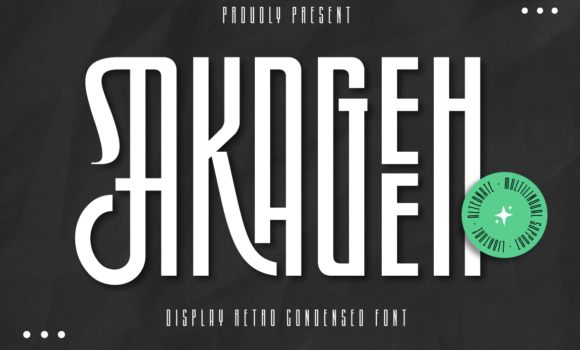
akageeh
Akageeh Font – Free Download Introduction to Akageeh Font Akageeh is a retro condensed sans serif, a contemporary, elegant, and bold font. 📸 Preview Gallery 6 images 📌 Product Name Akageeh Font 👤 Author twinletter 📂 Category Explore ⬇️ Download